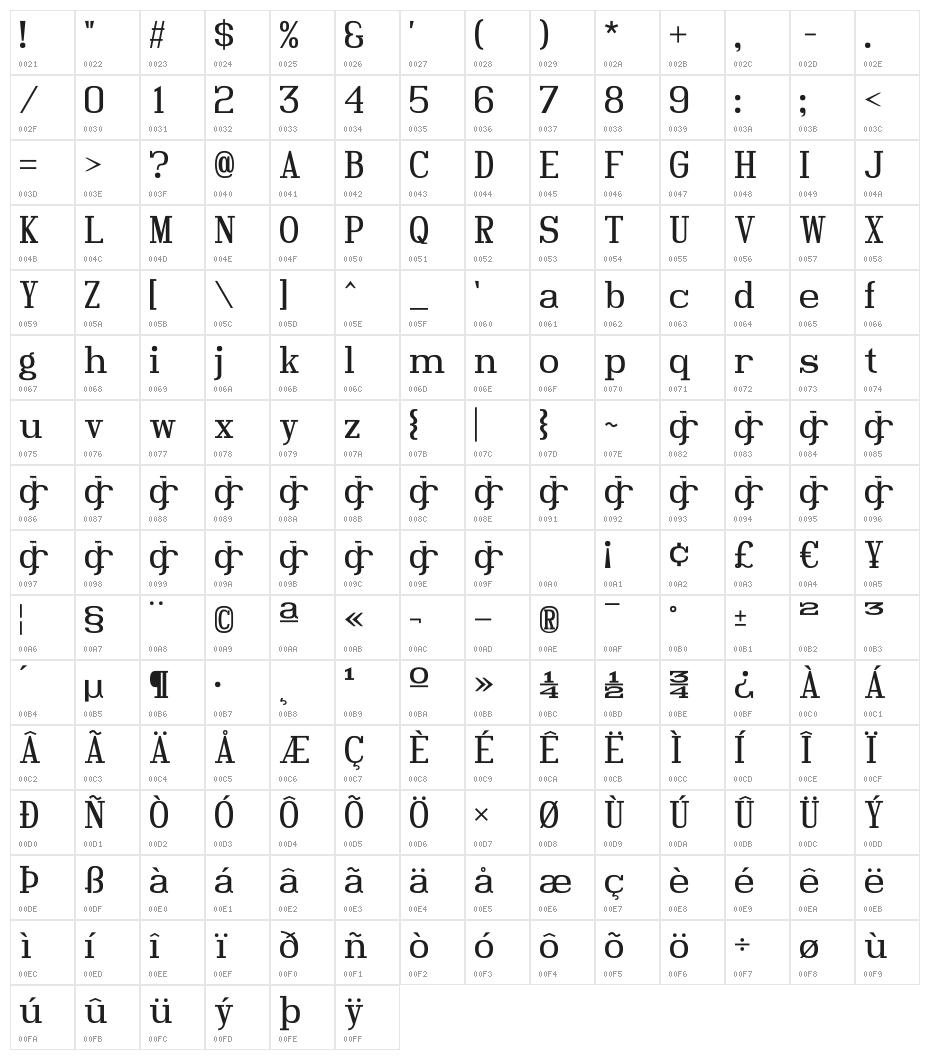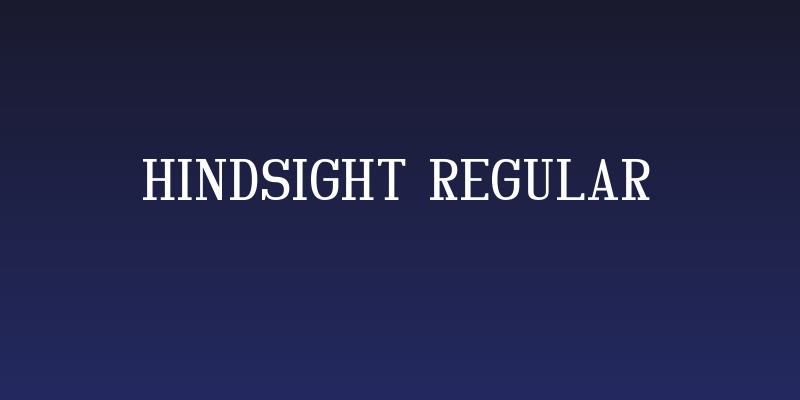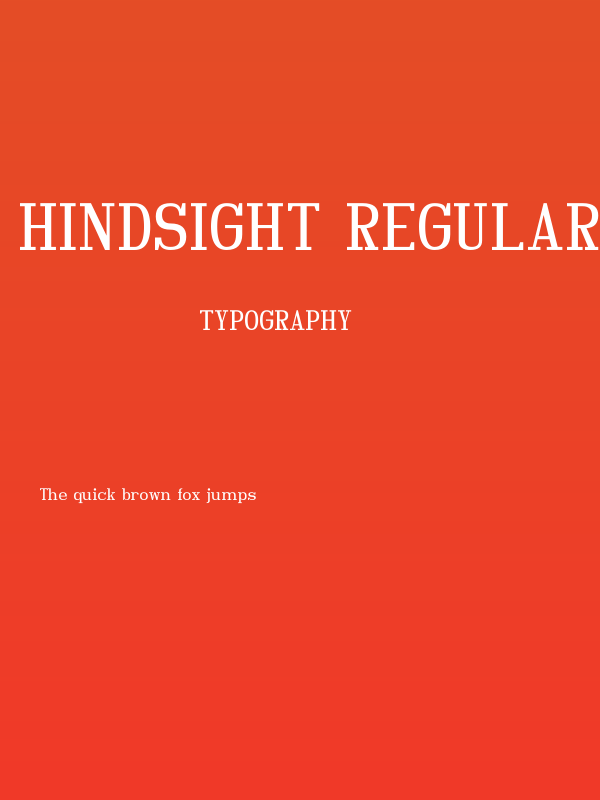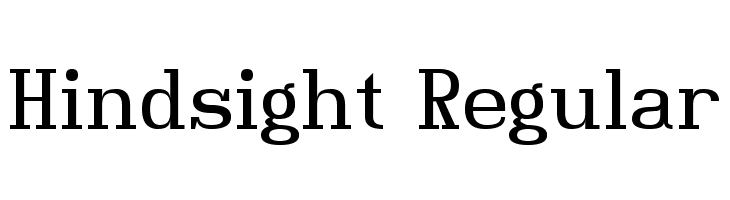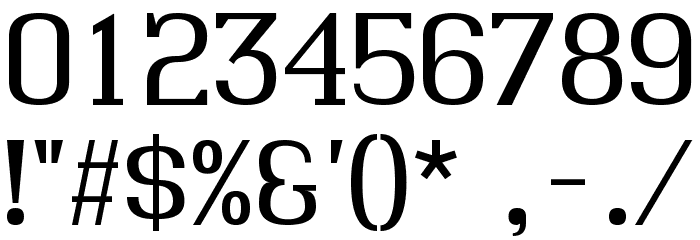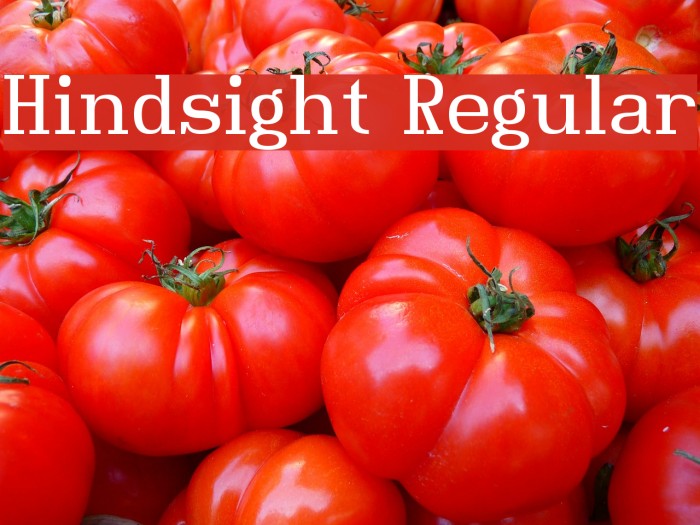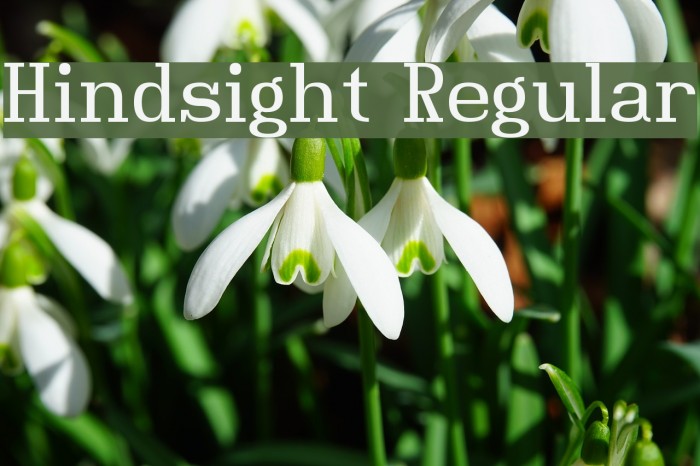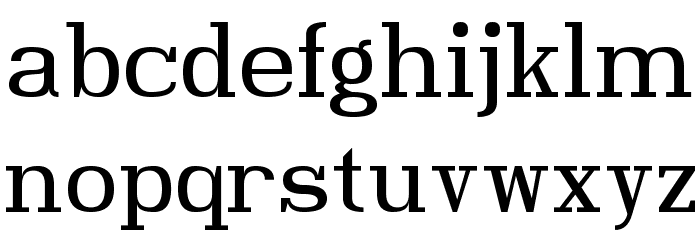
Hindsight Regular Font
Hindsight Regular Description
This font features a classic serif style with a modern twist, characterized by its clean and sharp lines. The uppercase letters are bold and commanding, while the lowercase letters maintain a balanced and readable form. The numerals are distinct and clear, making them suitable for a variety of applications. Special characters are well-defined, adding versatility to the font's usage. The overall design is both elegant and functional, making it ideal for both print and digital media.
| Proposed Projects | Ideal for editorial design, book covers, branding, and formal invitations. |